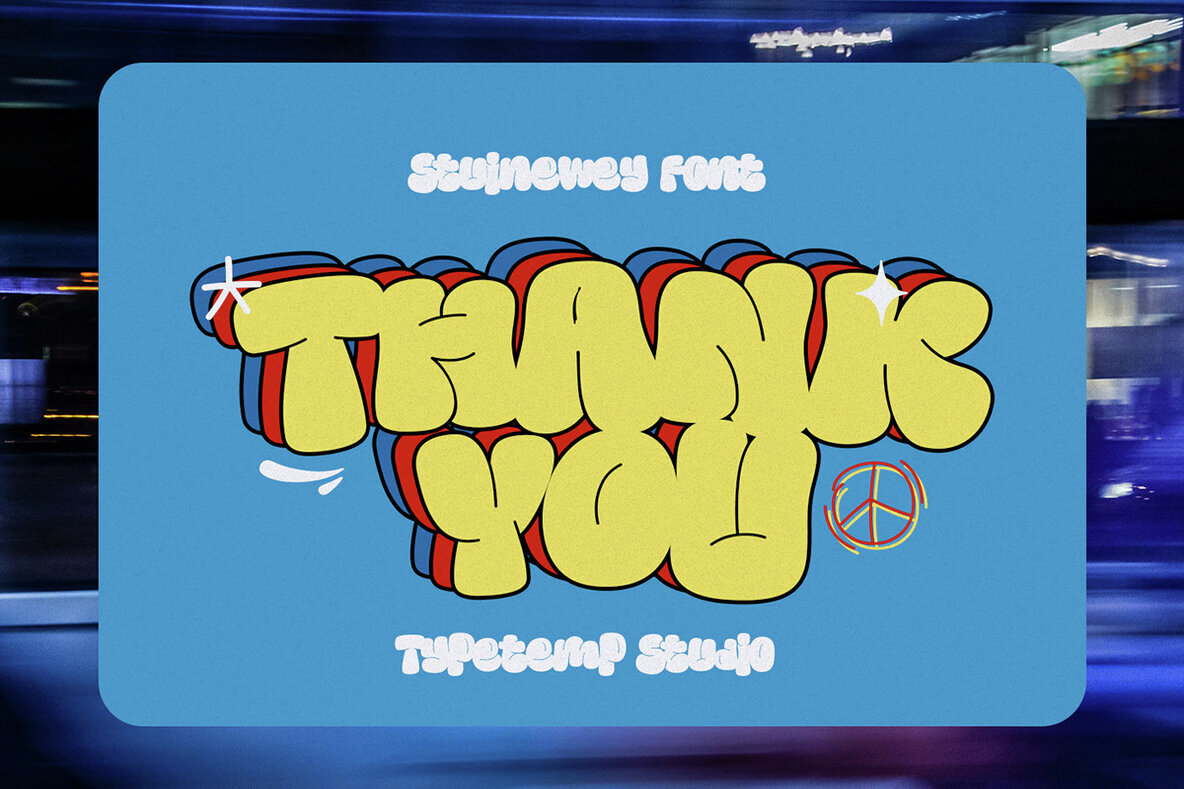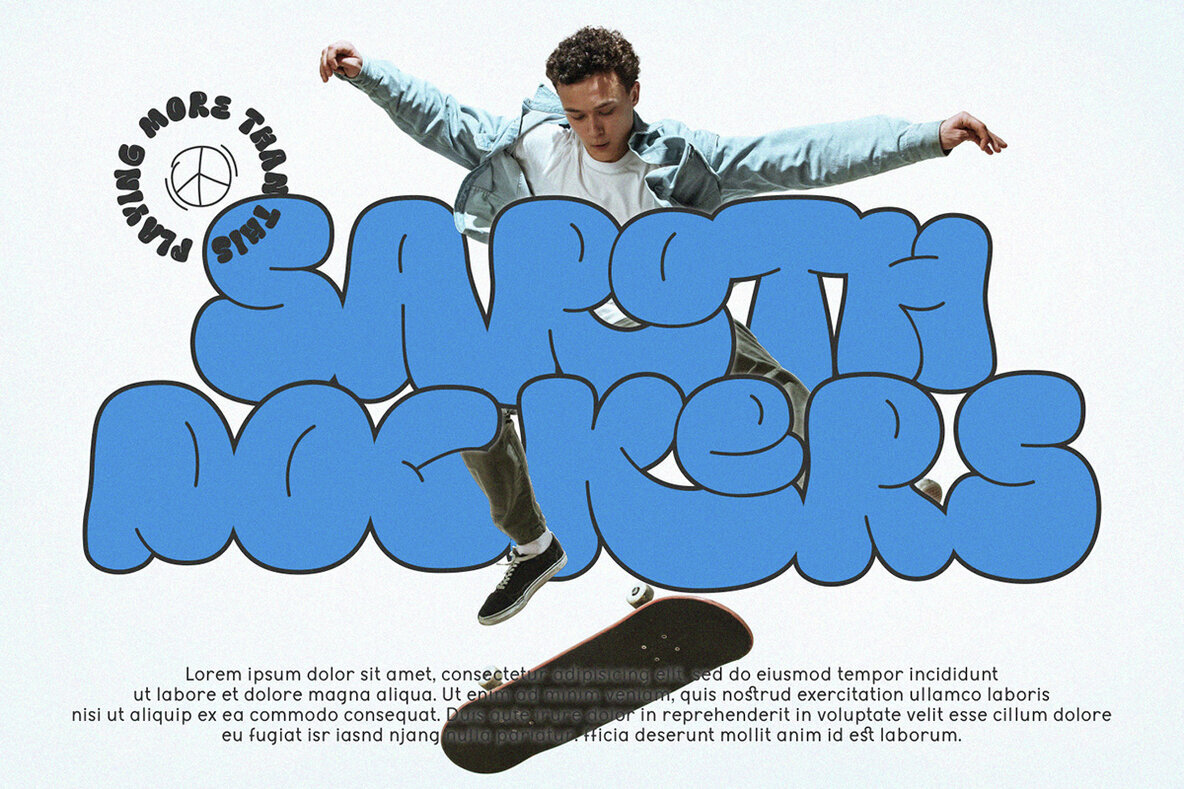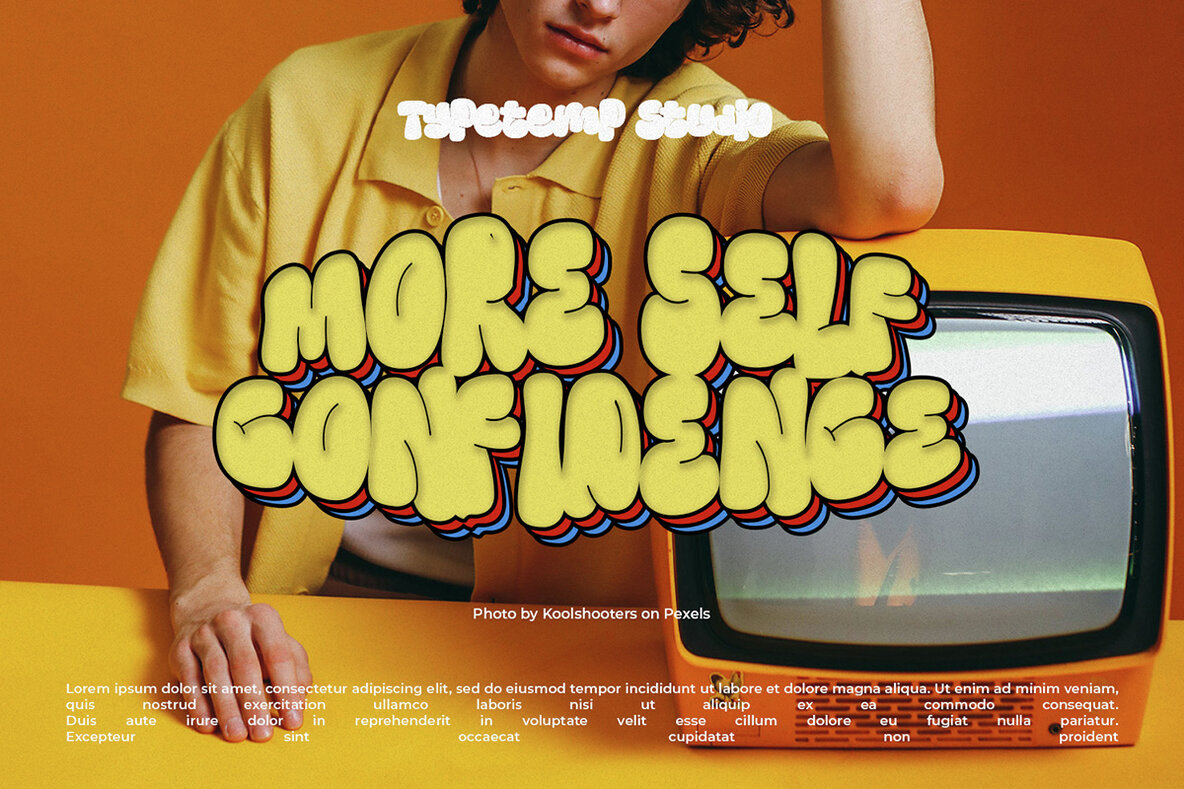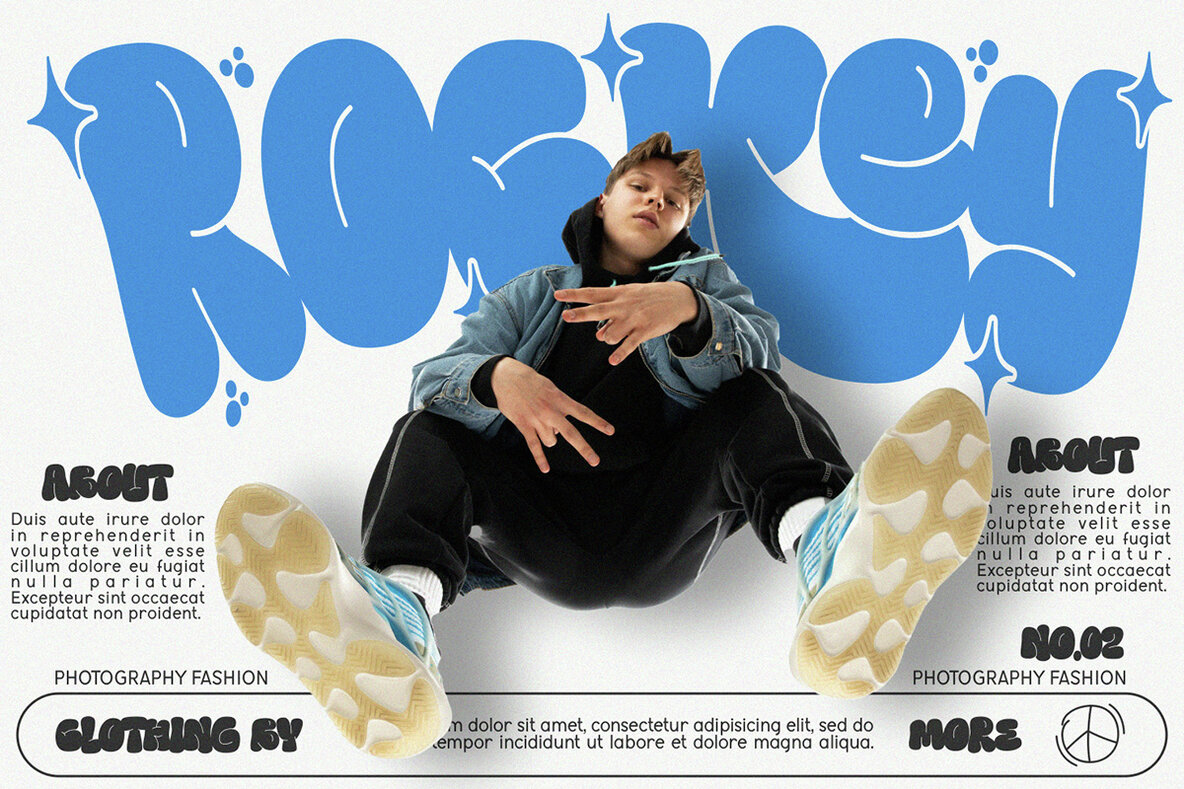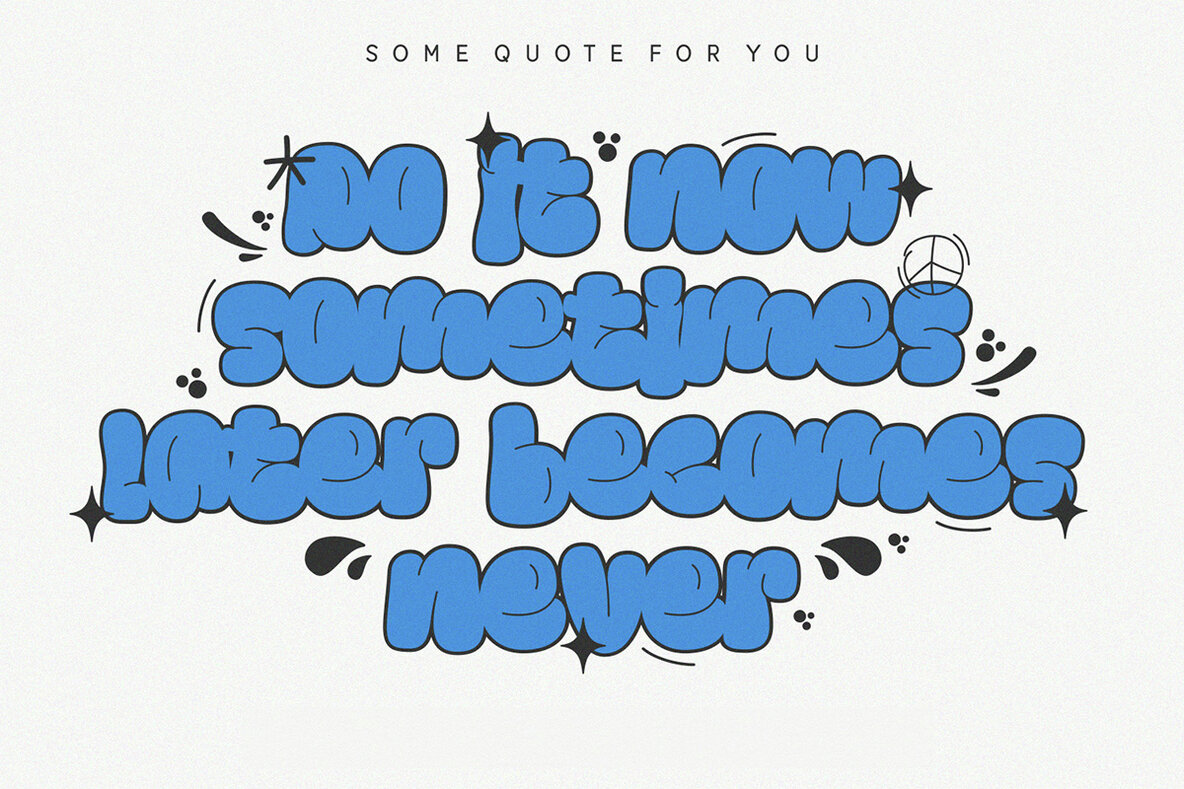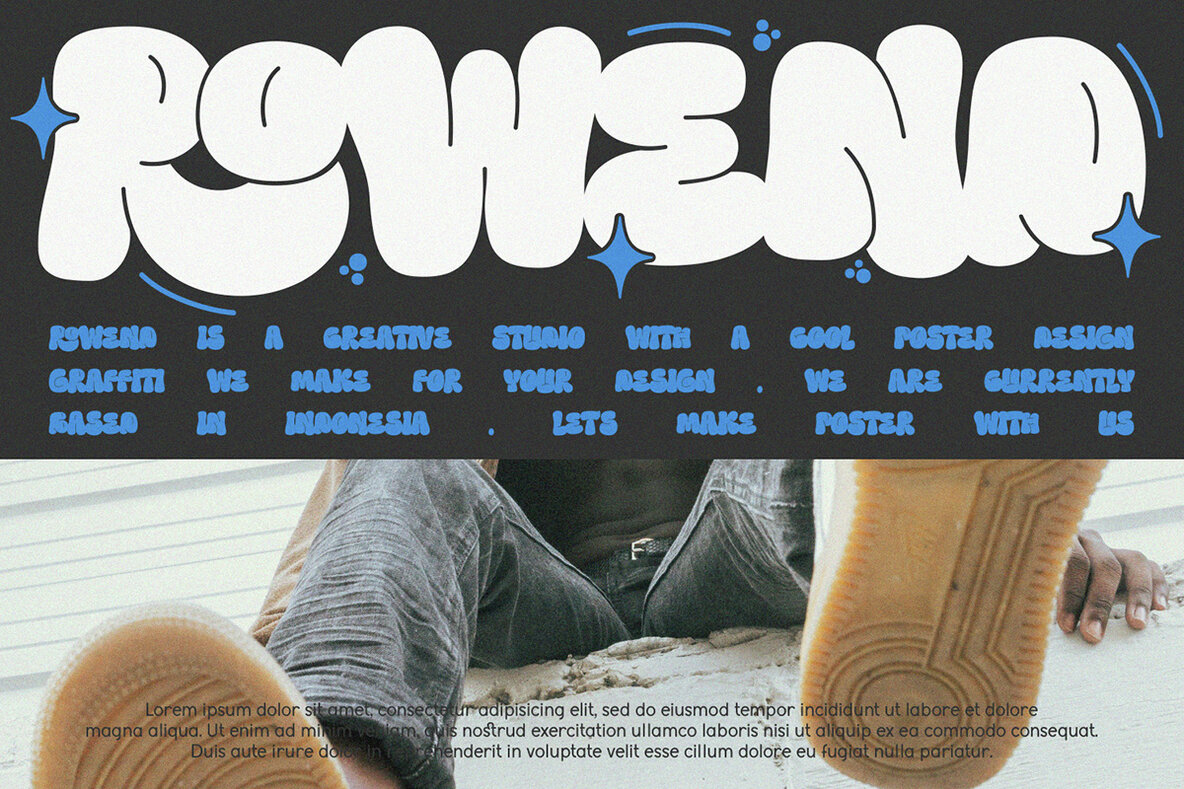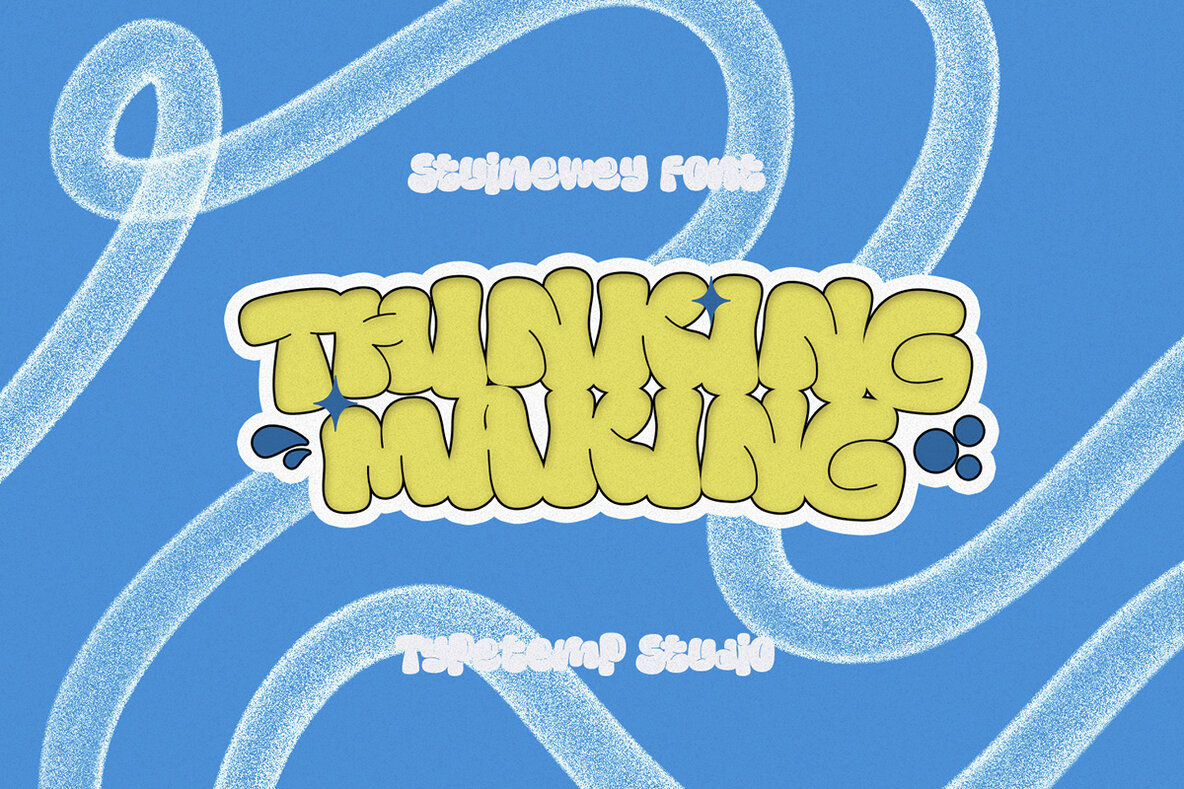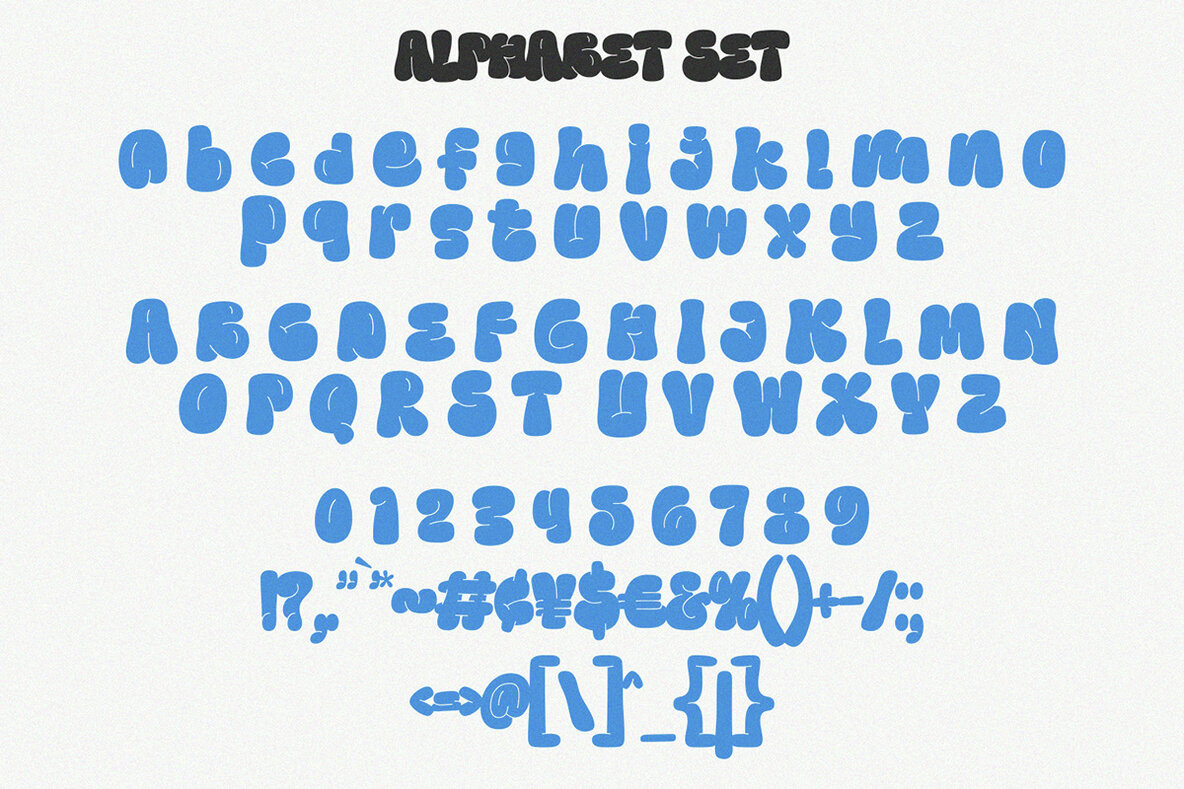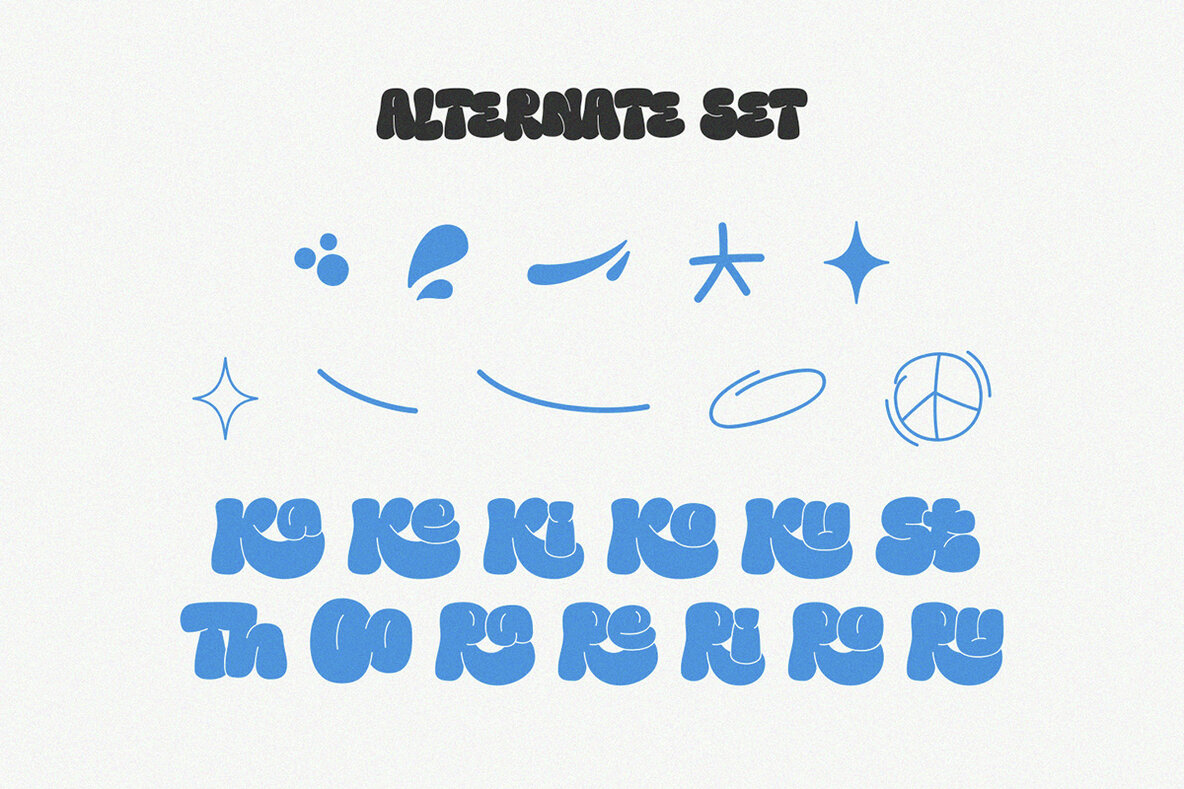
Stuinwey Font
Stuinwey Display Regular
Stuinwey is a vibrant bubble graffiti display font designed to add a playful and artistic touch to your projects. Featuring bold, rounded characters, it is perfect for creating eye-catching posters, branding materials, T-shirts, and social media graphics. Stuinwey includes a variety of alternates and ligatures, allowing for versatile and creative typographic designs. To access these features, ensure you're using a program that supports OpenType, such as Adobe Illustrator, Photoshop, InDesign, or Corel Draw.
Elevate your design toolkit with Stuinwey's unique bubble style, bringing a fresh and dynamic look to any project. Whether you're aiming for a street-art vibe or a bold, expressive headline, this font delivers exceptional visual impact. Explore the limitless design possibilities with its extensive alternates and ligatures, and make a striking impression in your next creative endeavor.